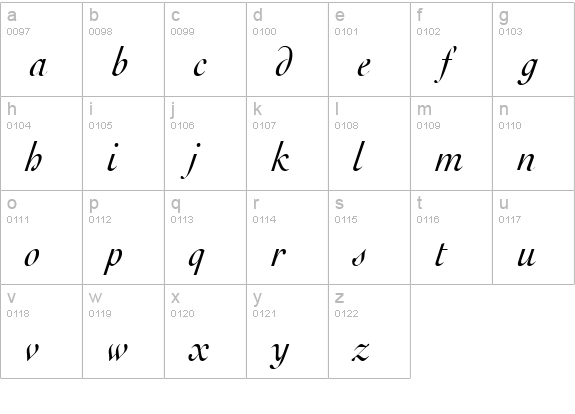
Collage Italic Font Details
Collage Italic is a distinctive, italic variant in the Collage typeface family \xE2\x80\x94 well suited to design and typography projects.
Collage Italic font is a stylish and versatile typeface that exudes creativity and uniqueness. With its elegant slanted design, this font adds a touch of sophistication to any project it is used in. The fluidity of the italicized letters creates a sense of movement and dynamism, making it perfect for conveying a sense of modernity and innovation. The best part is, Collage Italic font is available for free download at FontsMarket.com. You can easily access this beautiful font and enhance your designs with its distinctive aesthetic. Whether you're working on a branding project, a poster design, or a digital artwork, Collage Italic font will surely make your creations stand out. Don't miss out on the opportunity to elevate your designs with this stunning and free font. Download Collage Italic today and unleash your creativity like never before!